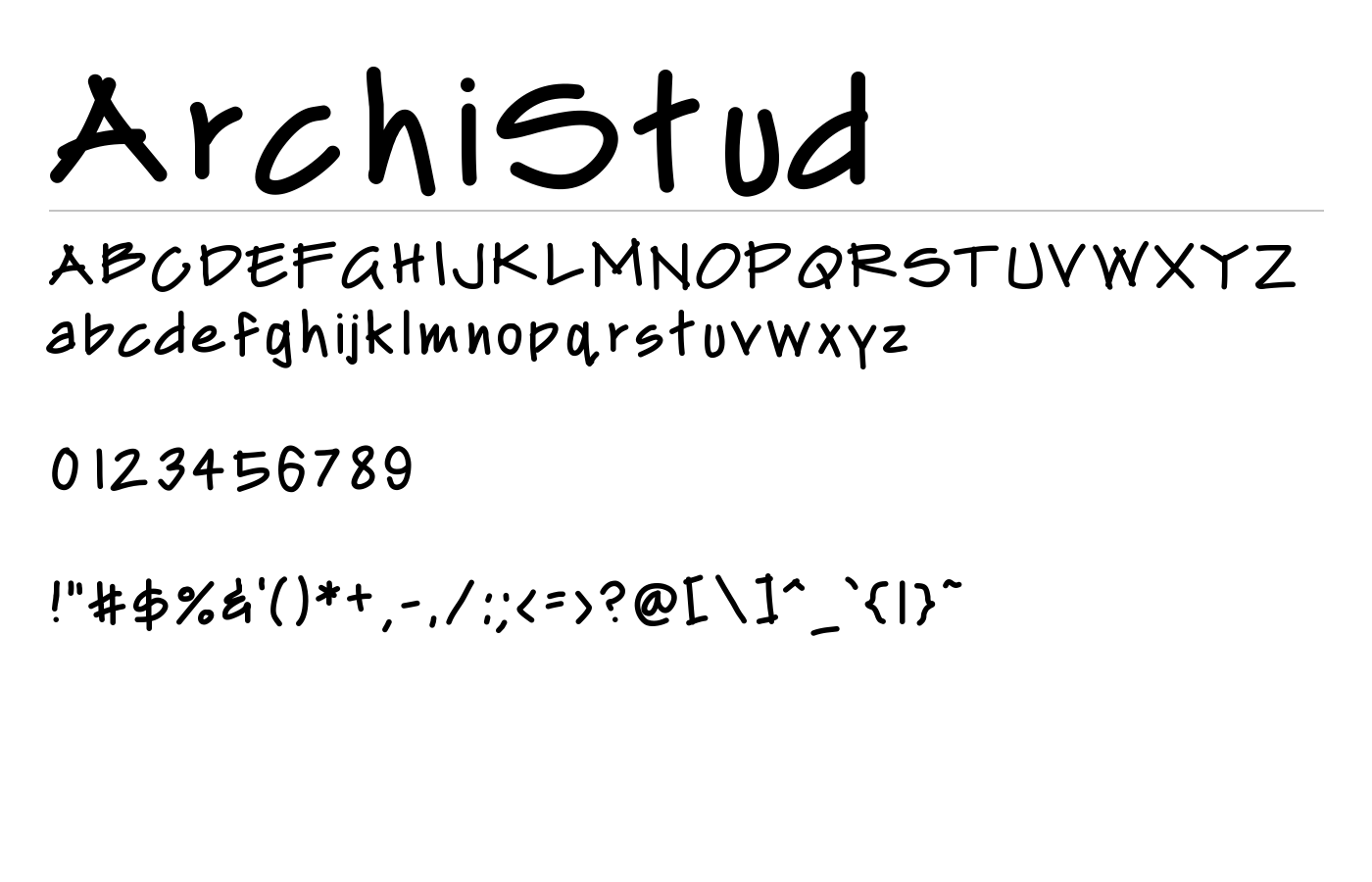
ArchiStud is a casual, sans serif font with a playful and handwritten feel, featuring a medium weight and slightly irregular strokes that create an approachable and friendly vibe. Its tall x-height and clear letterforms make it easy to read, while the quirky shapes add character that works well for informal designs, children’s content, and creative projects. This font is ideal for logos, posters, and websites that want to convey warmth, creativity, and a personal touch.
ArchiStud Font
About ArchiStud Font